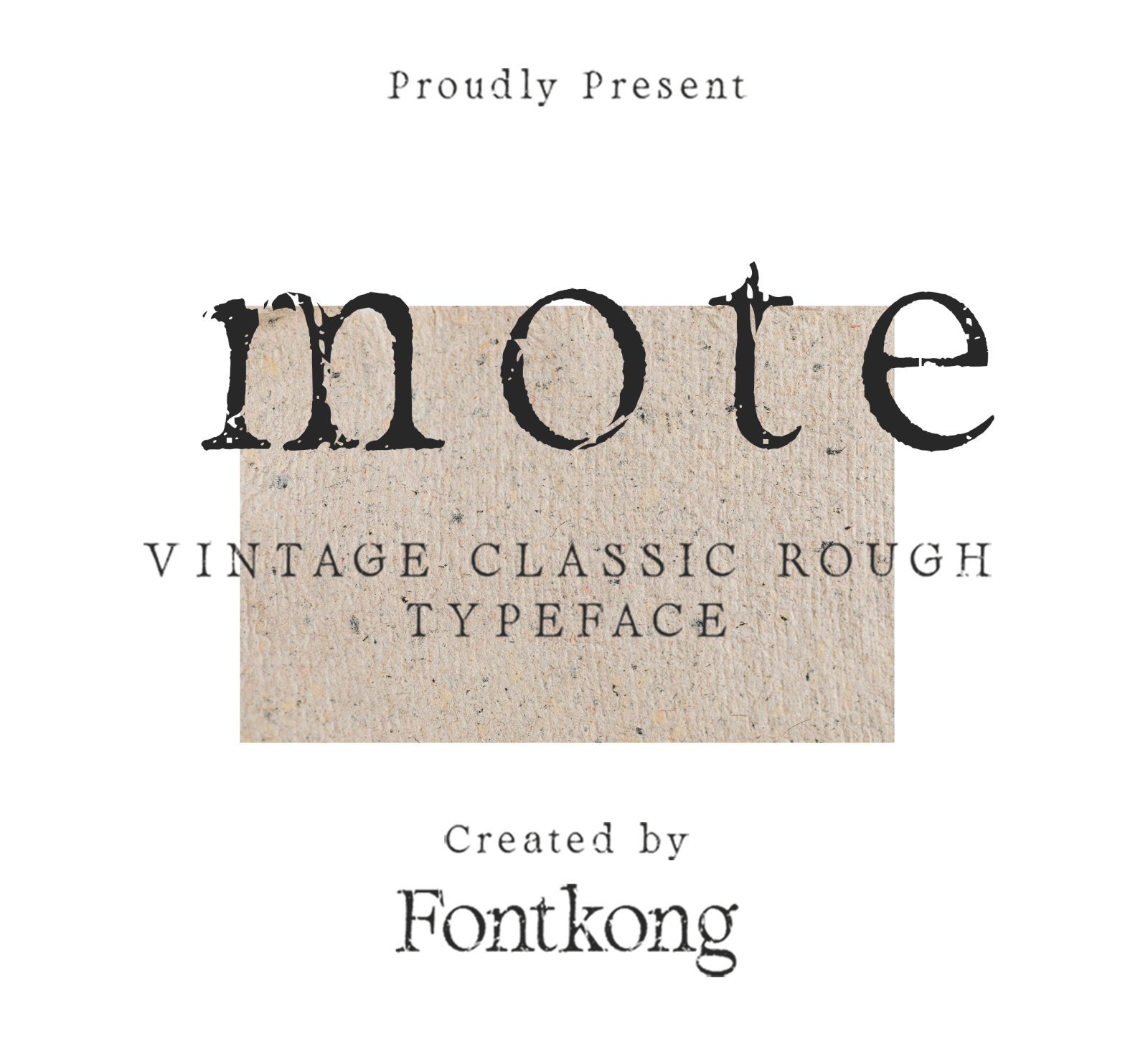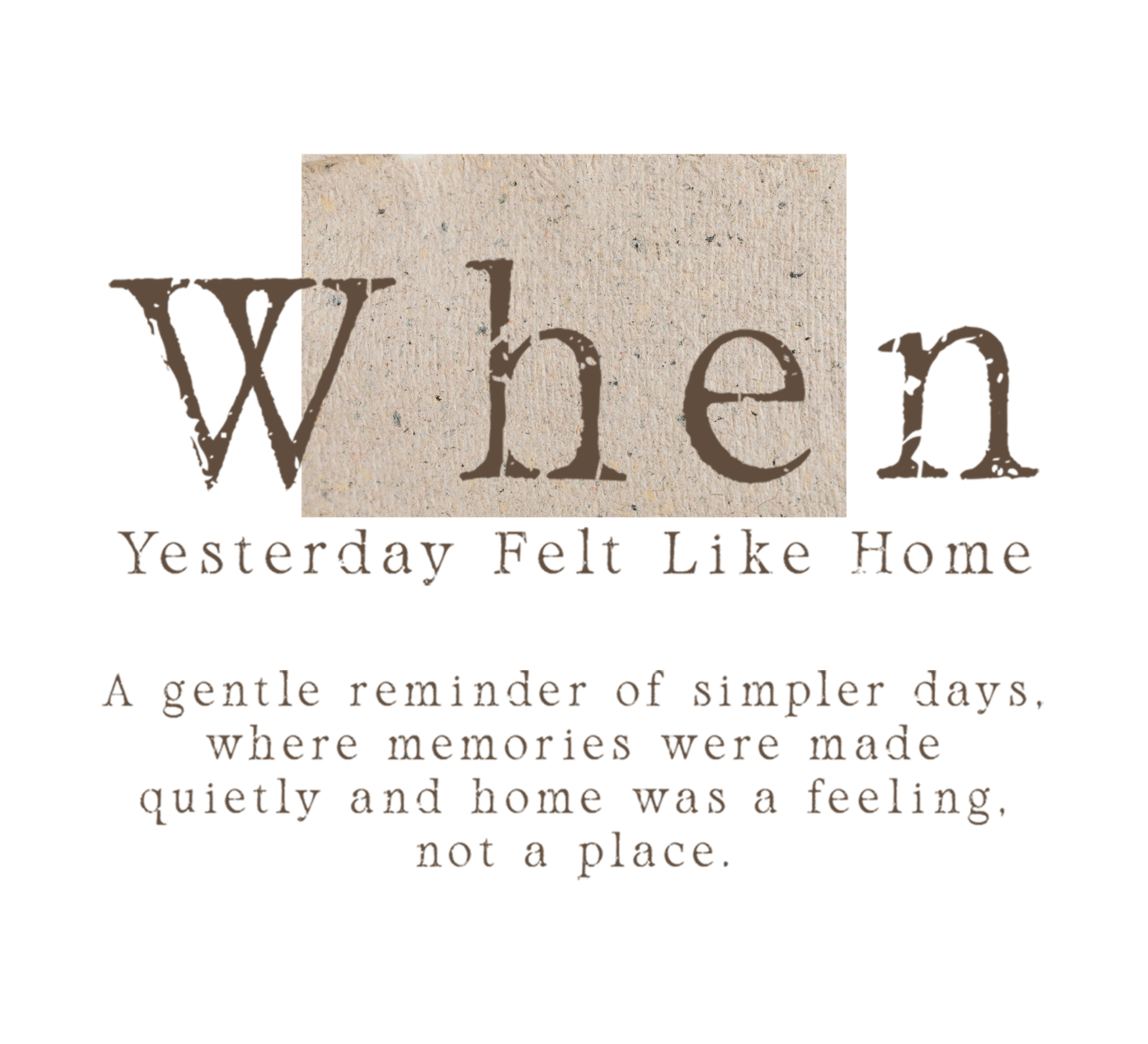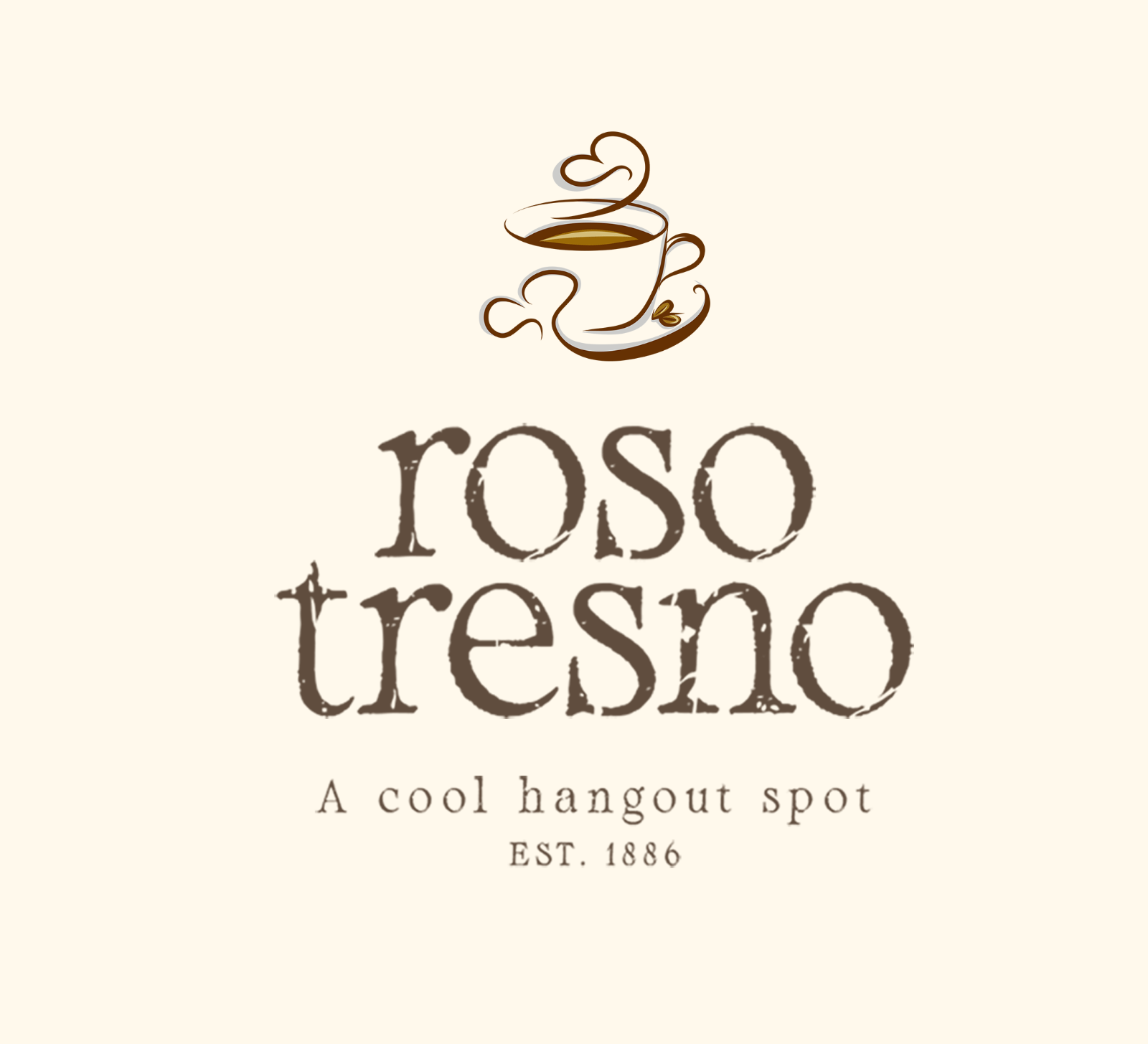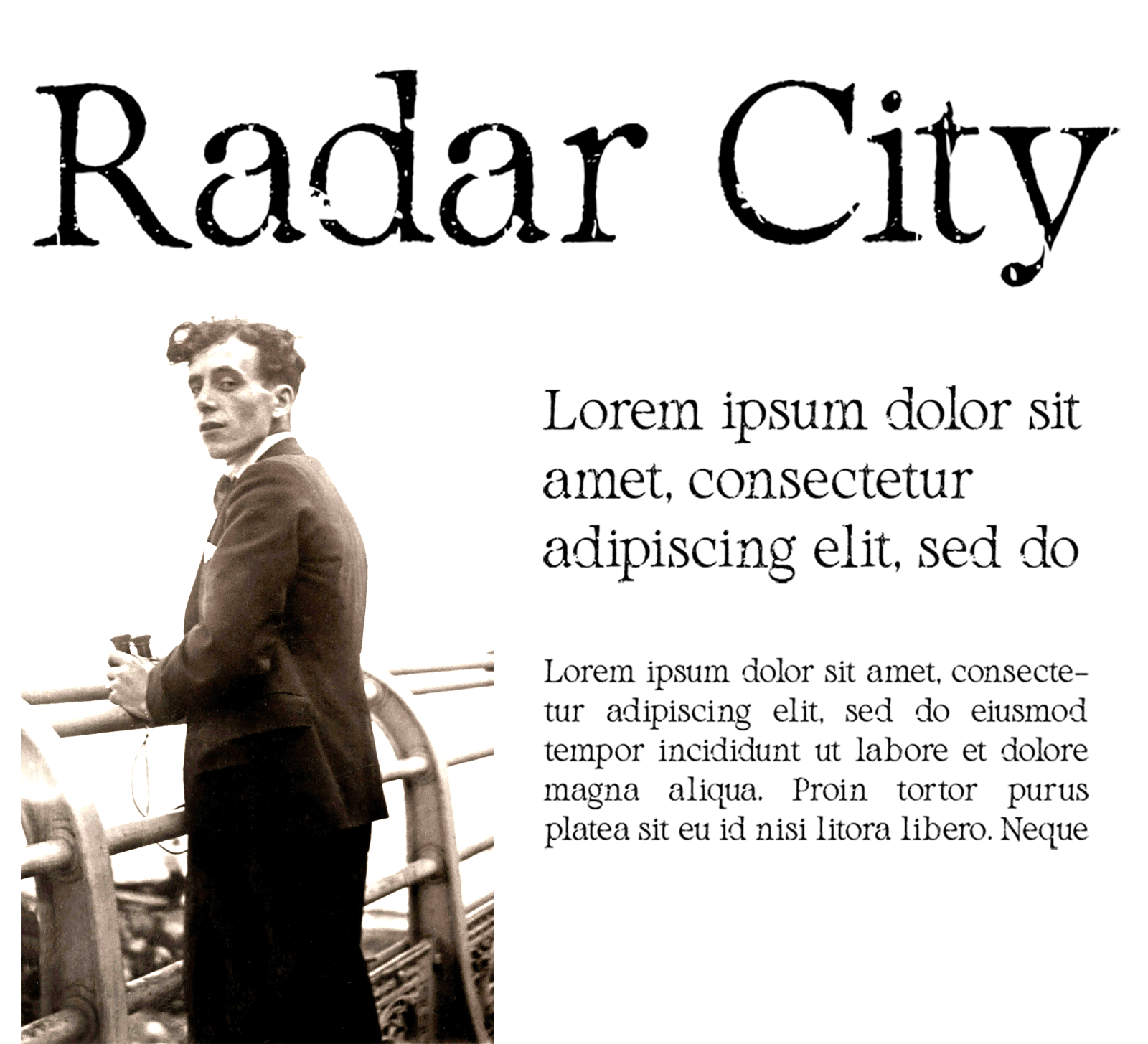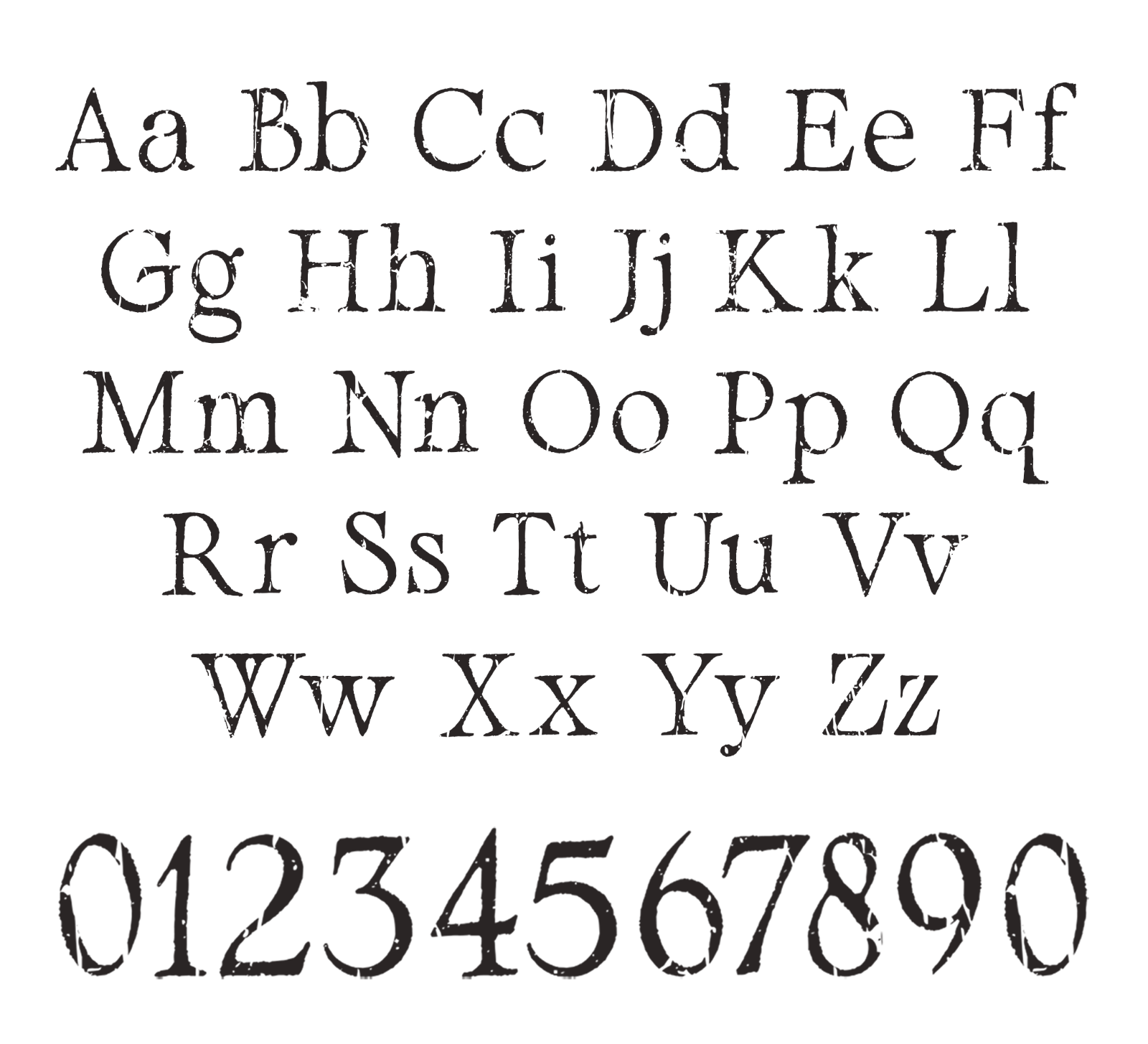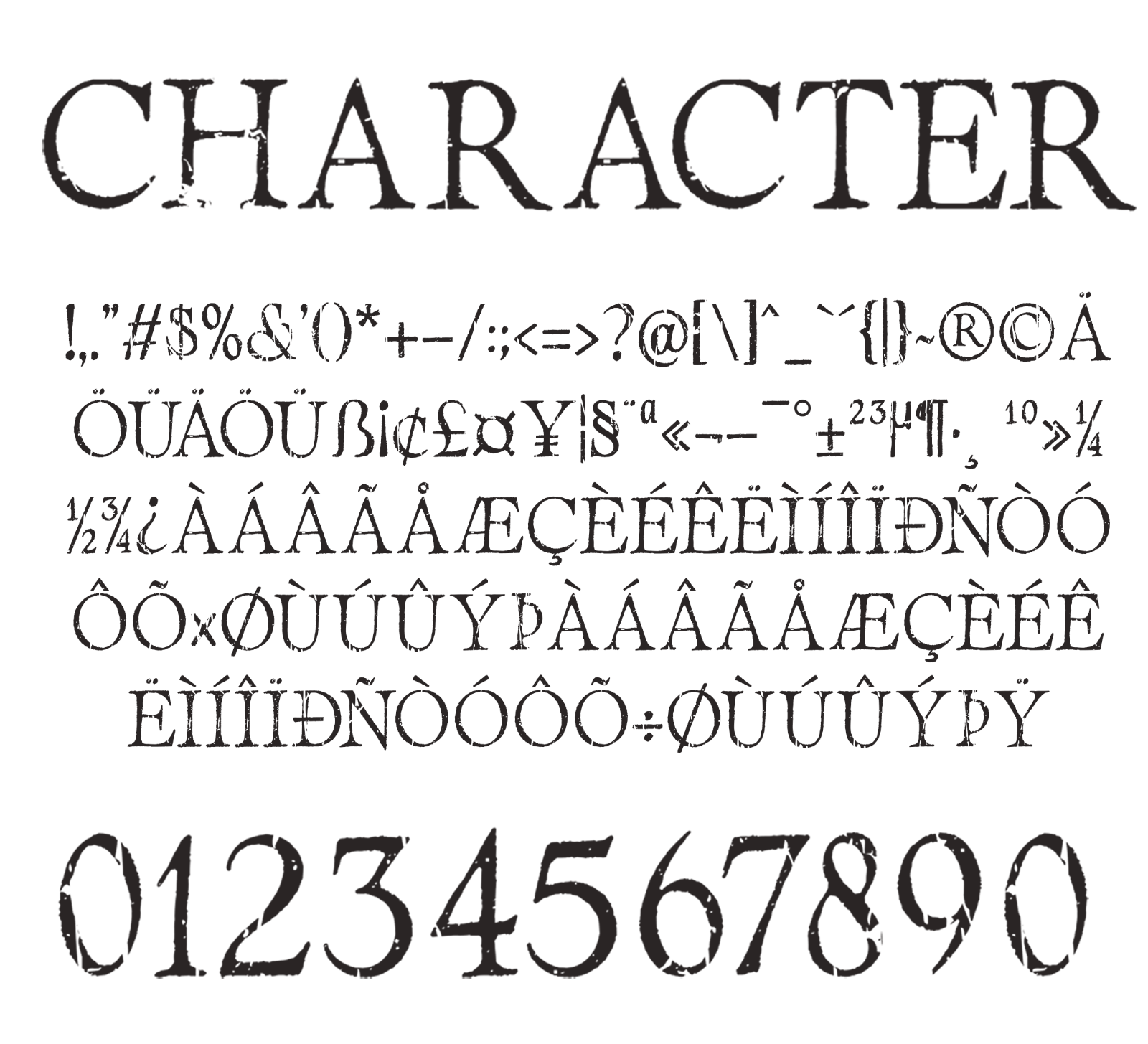
Mote is a modern retro serif font with bold letterforms, unique curves, and a stylish vintage-inspired look. Its strong and distinctive character makes it perfect for eye-catching headlines, branding, and creative display designs.
• Retro branding
• Logos
• Business cards
• Blog headers
• Quotes
• Editorial titles
• Packaging
• Creative typography